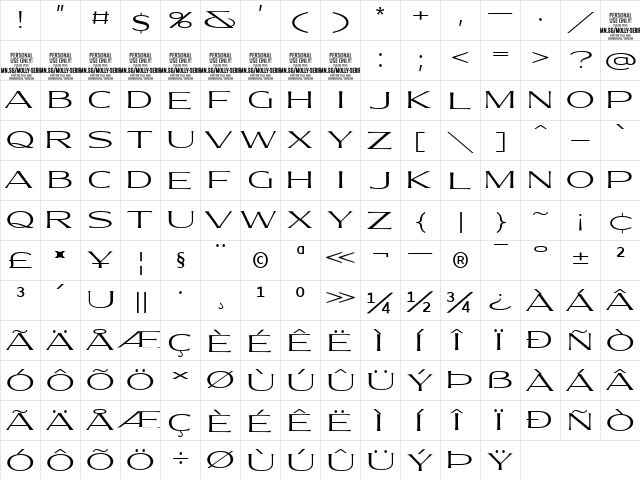
Molly Serif XE PERSONAL Light
| Foundry | Mans Greback |
| Designer | Mans Greback |
Design Context for Molly Serif XE PERSONAL Typeface
Molly Serif XE PERSONAL brings classic typographic sensibility to the table — its serifs and measured letterforms reflect centuries of print heritage. The delicate stroke weight brings airiness and refinement to layouts.
Pro Tip: Use Molly Serif XE PERSONAL with generous line-spacing for the most refined reading experience — its light weight benefits from room between lines.